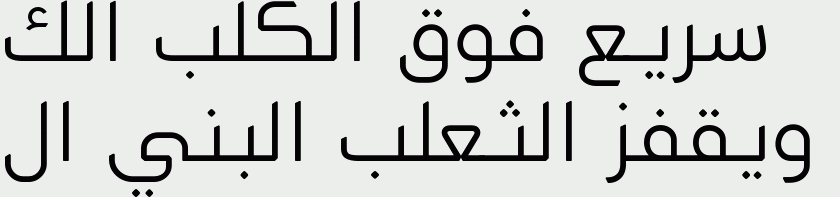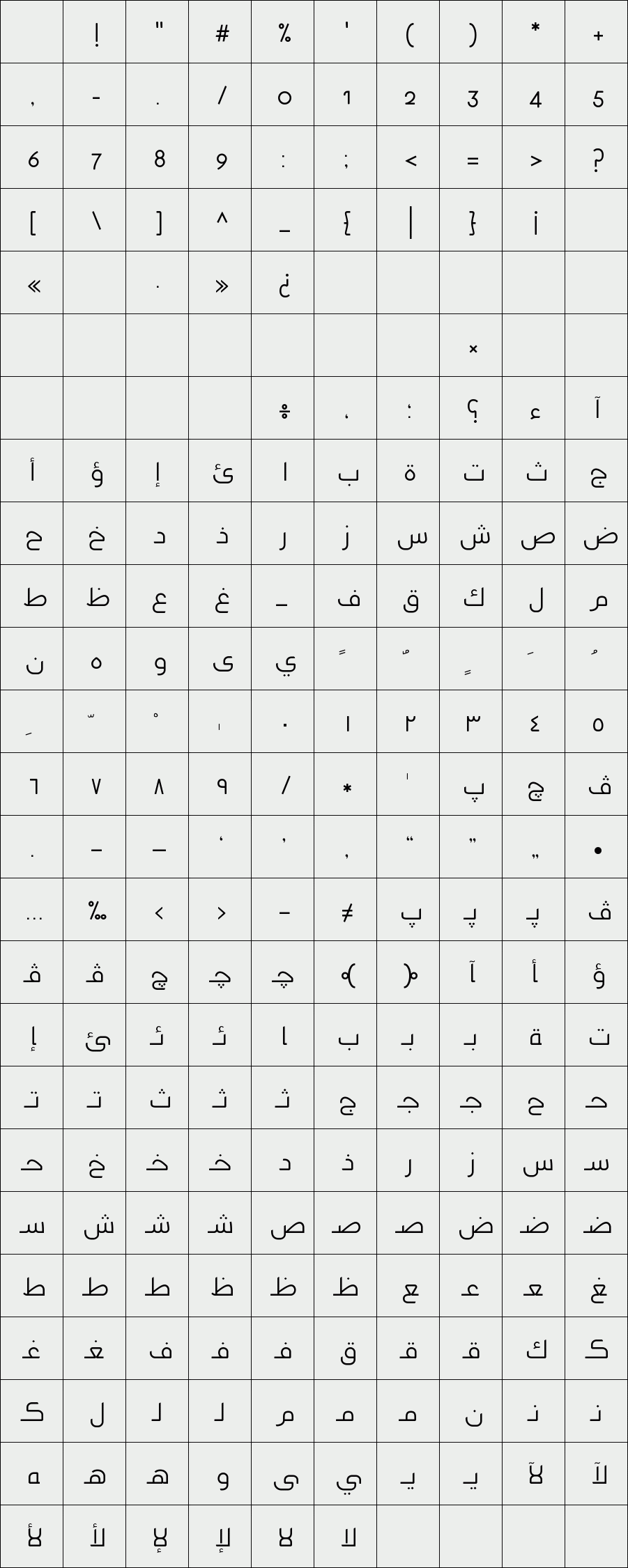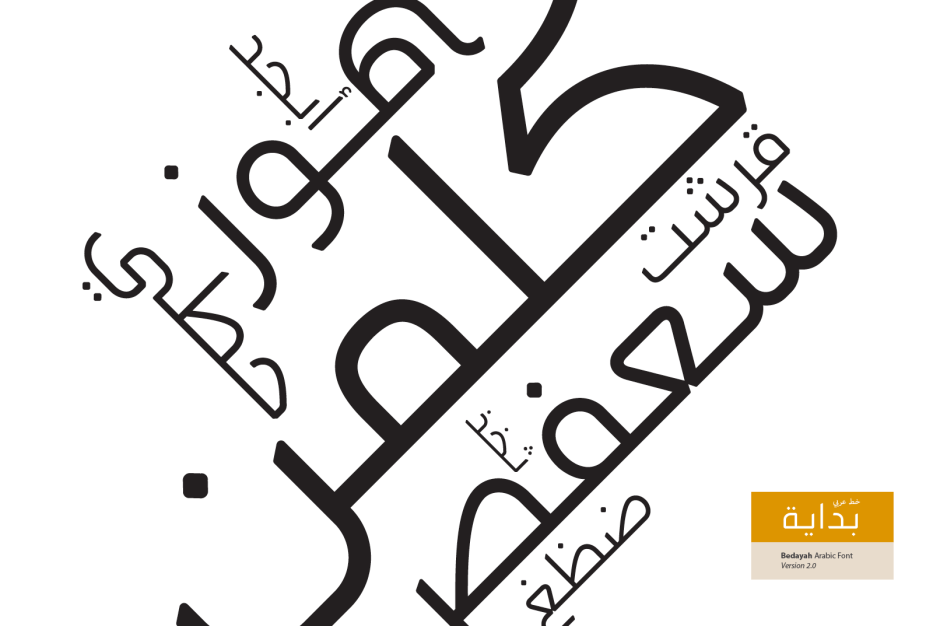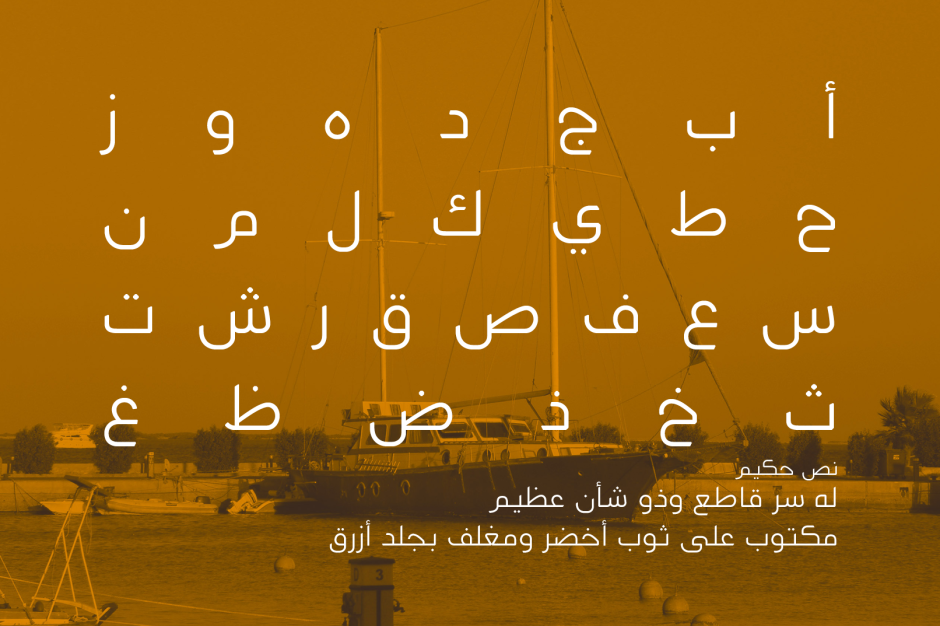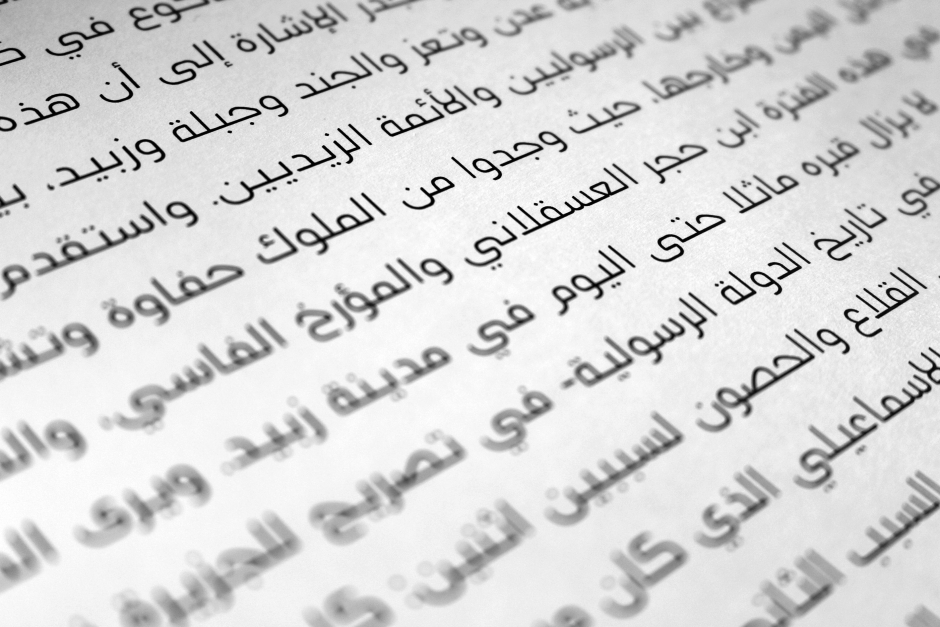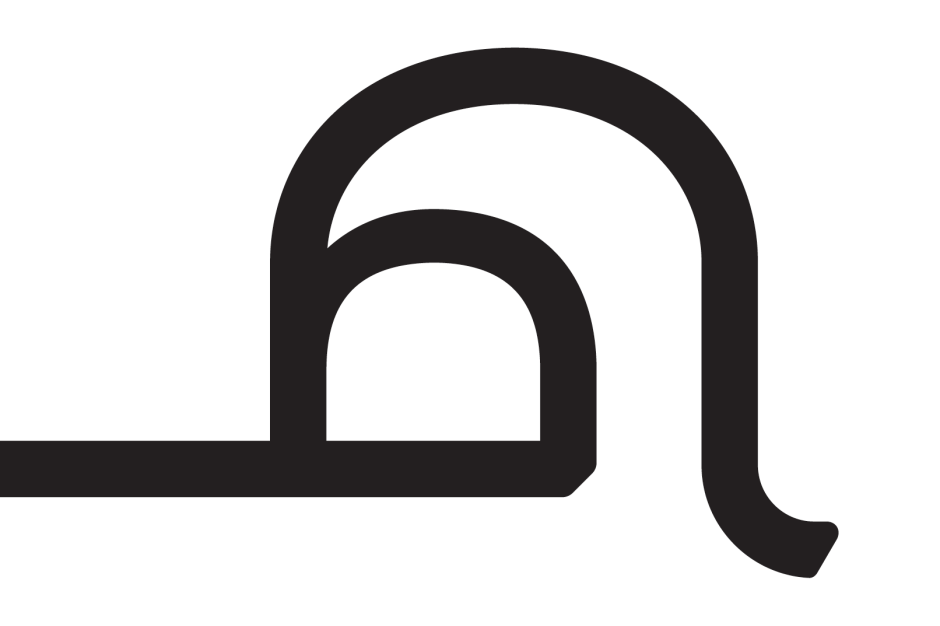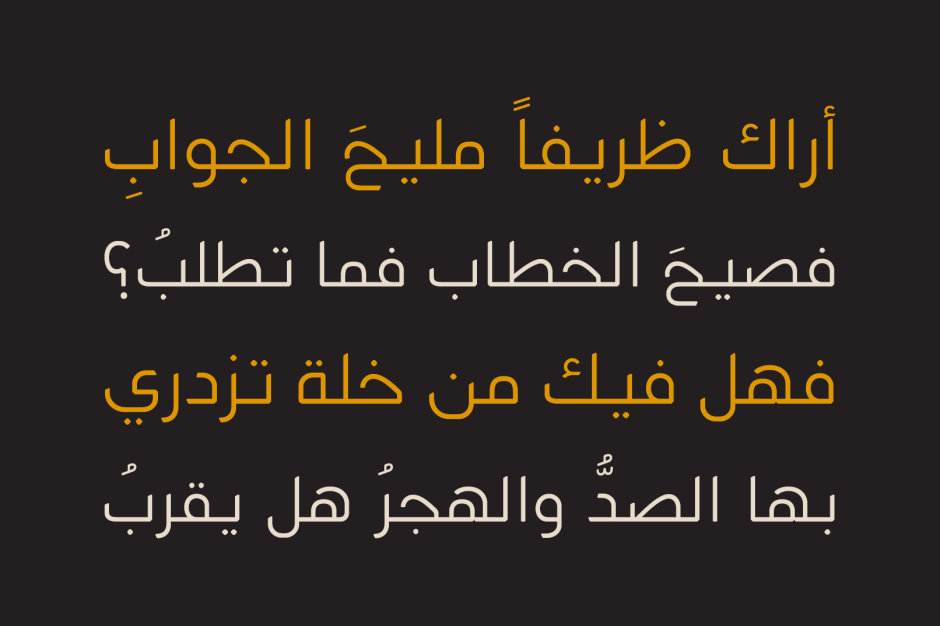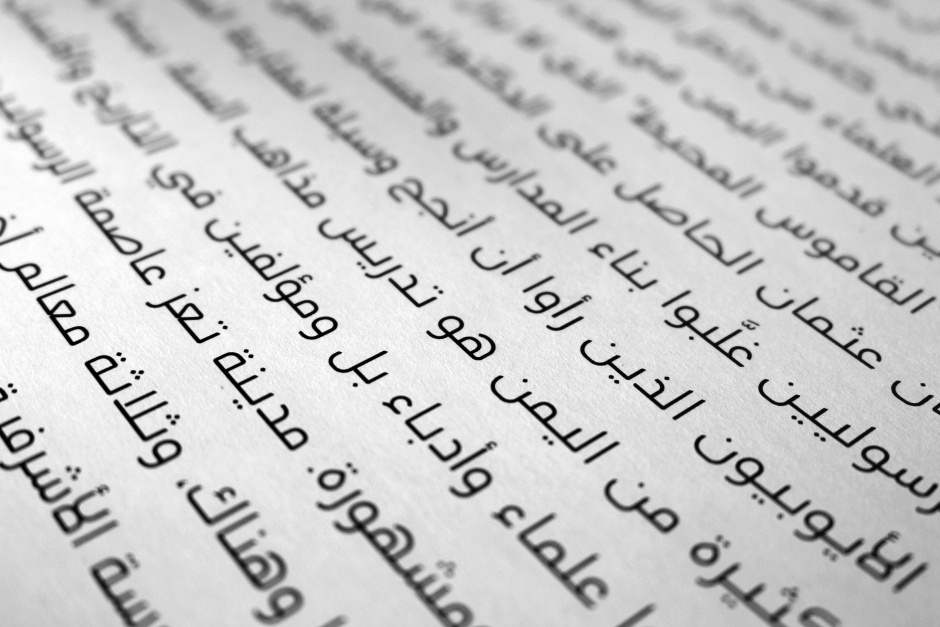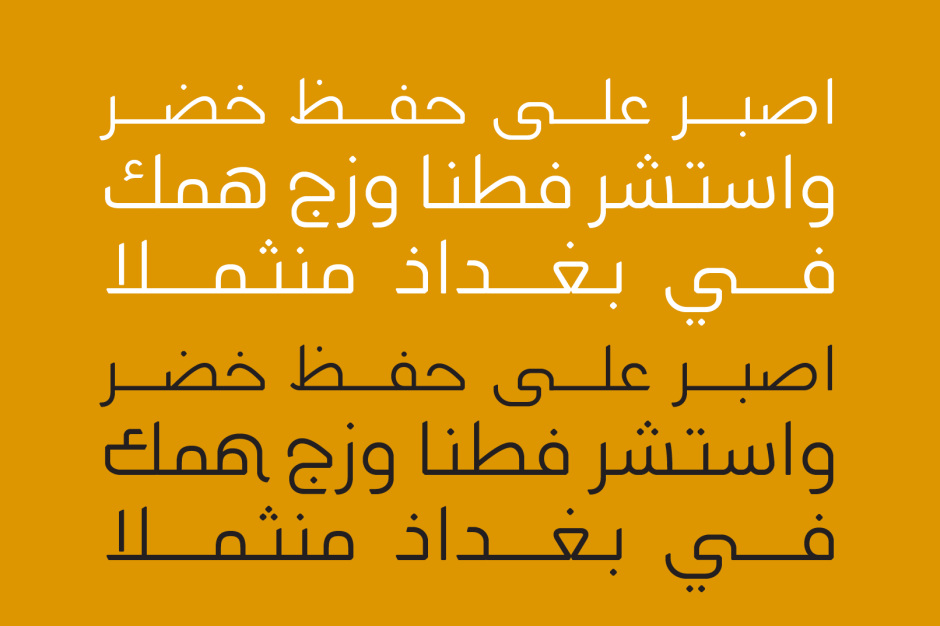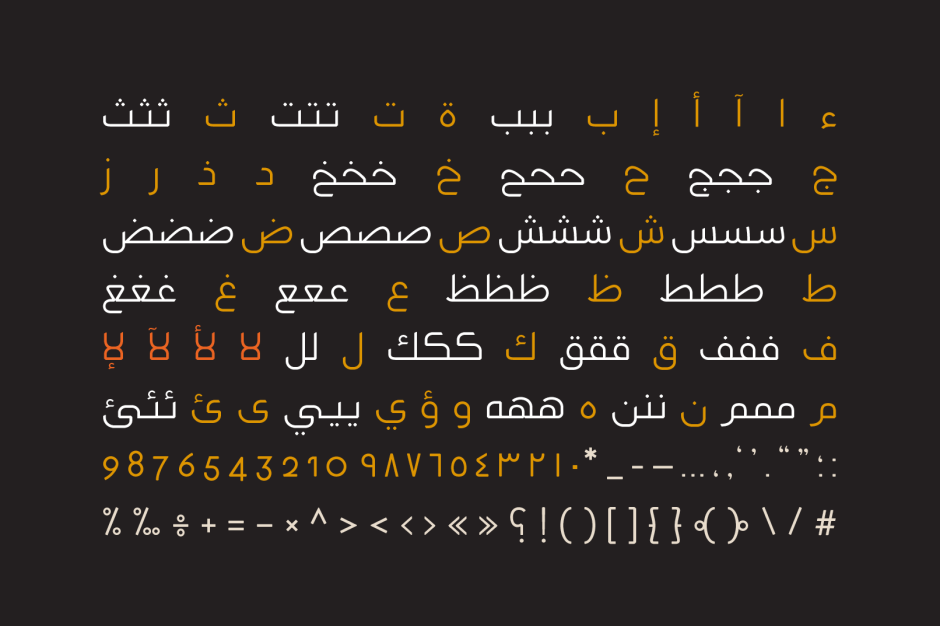
Bedayah
Bedayah is an Arabic font that blends geometric structure with contemporary aesthetics into legible letterforms. The word Bedayah is the Arabic for Beginning. Bedayah suits advertising, desktop publishing and web design.